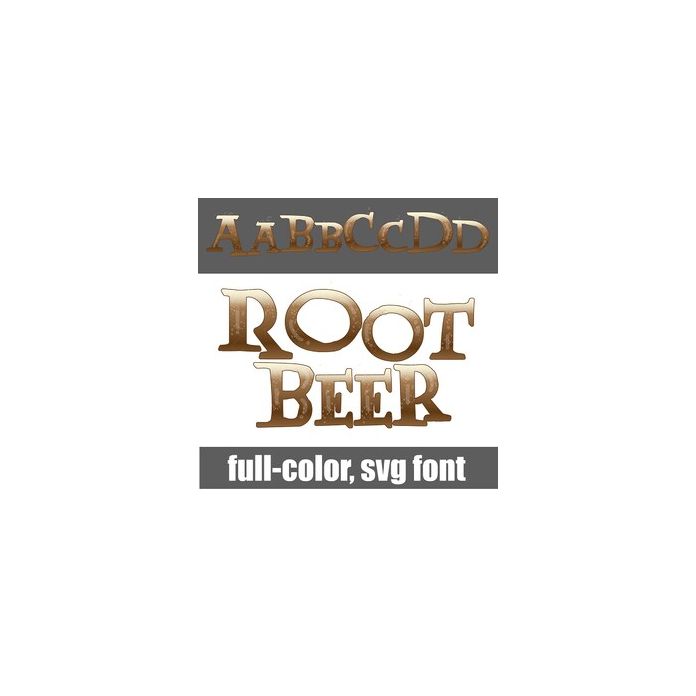
This full-color font features root beer style lettering. There is an alt case w/ additional colors you can access through your system or Silhouette's glyph map.